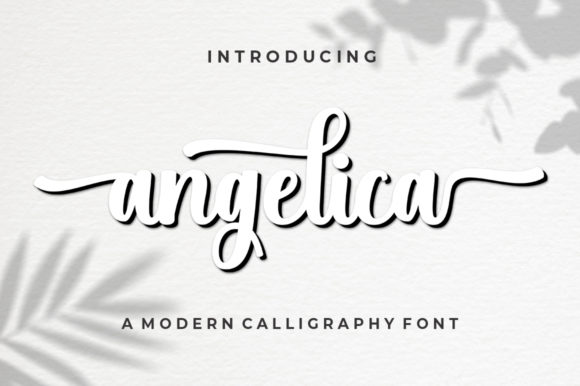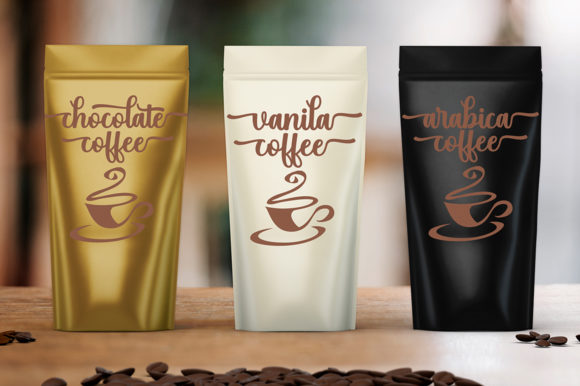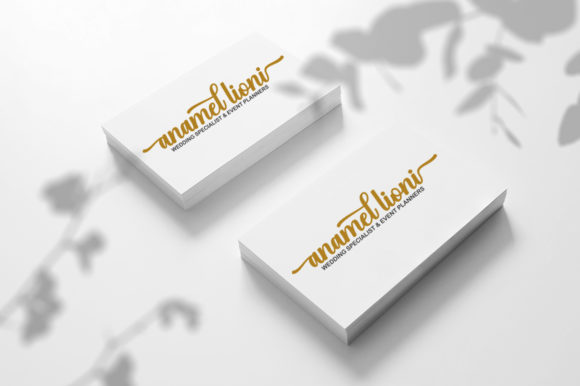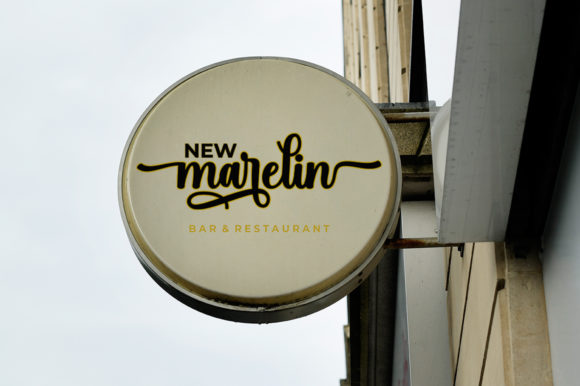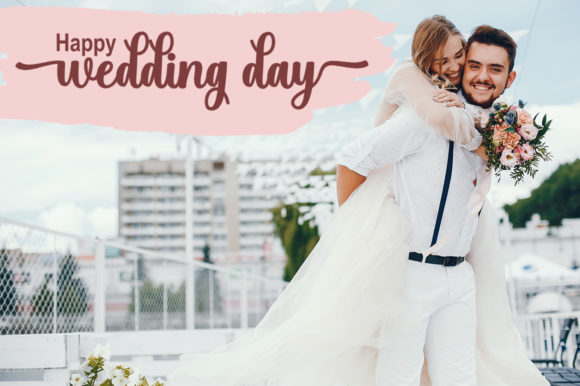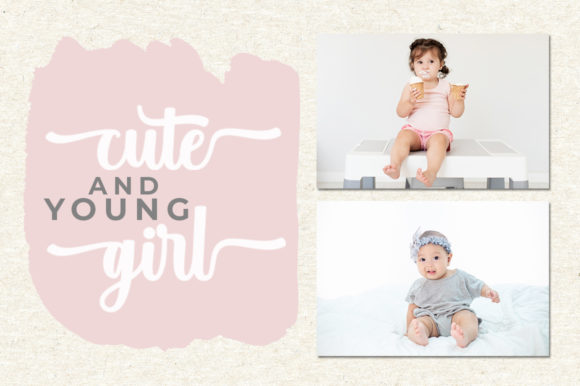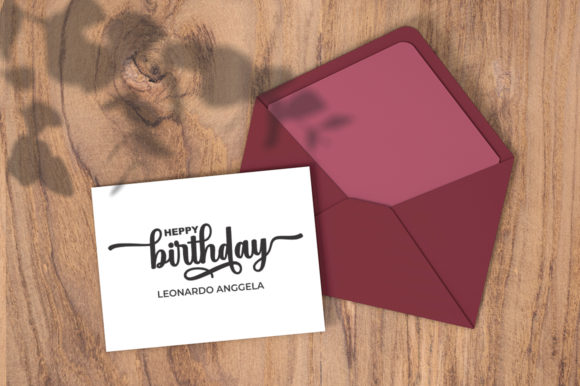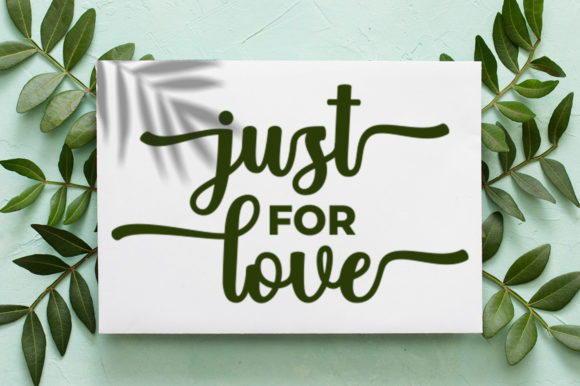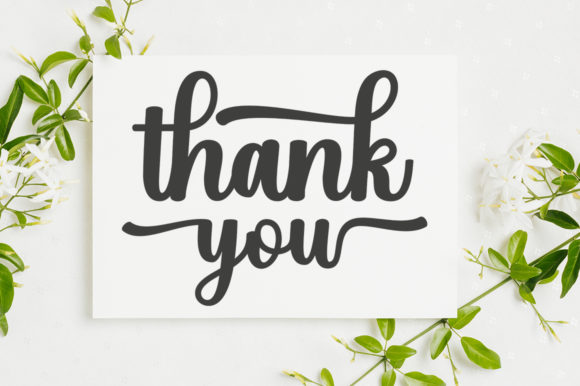
Angelica Font
About Angelica Font
Angelica is a modern script font featuring bold characters and an irregular baseline. Use it for any design project that requires a personalized appearance!